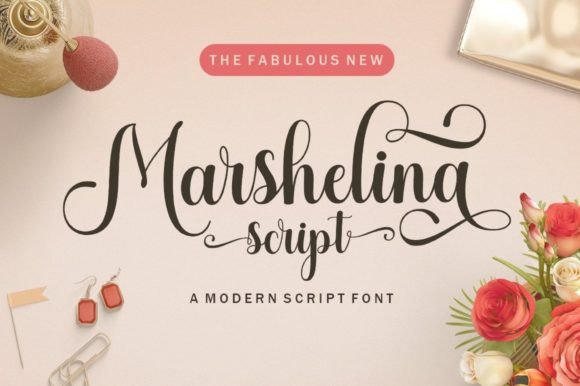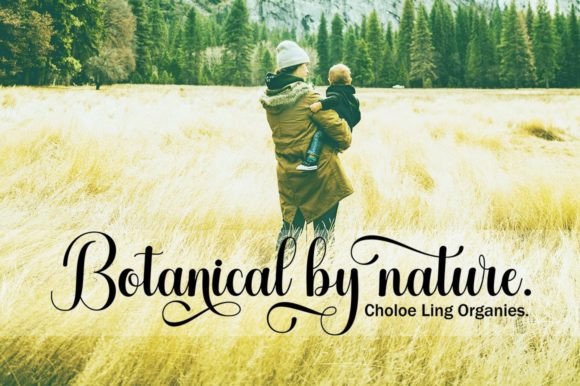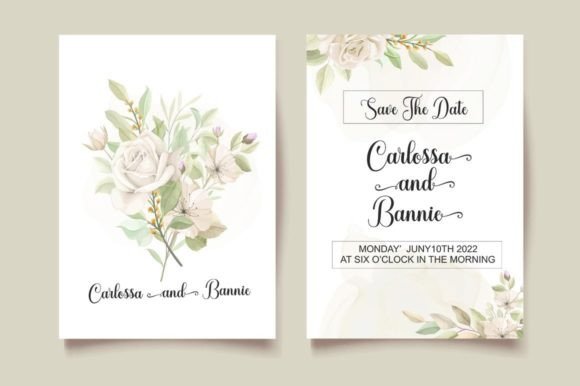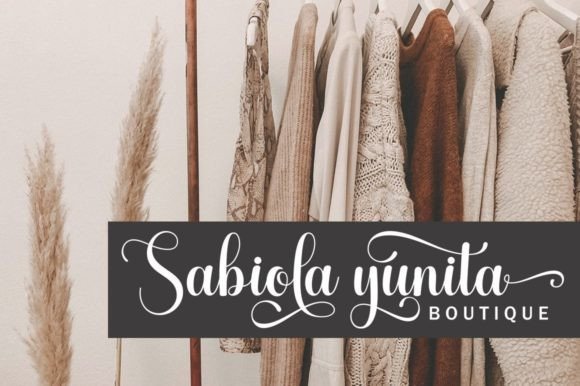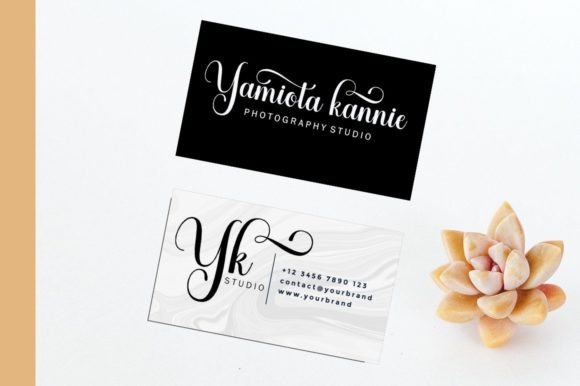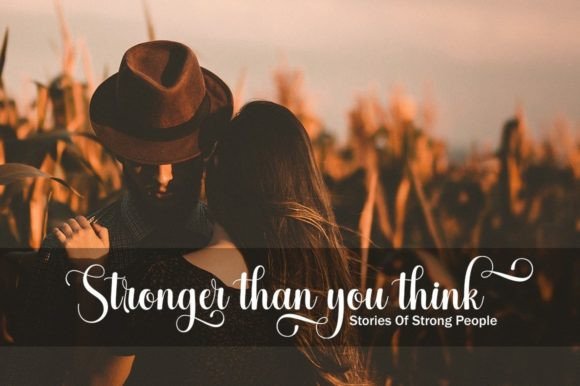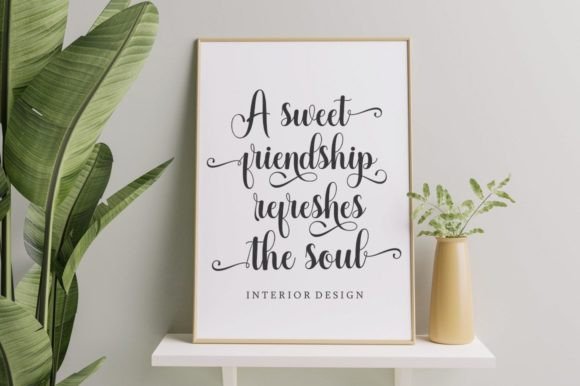
Marshelina Font
About Marshelina Font
Marshelina emerges as a romantic and sweet calligraphy typeface, where characters gracefully dance along the baseline, infusing a sense of luxury into any design project it graces. This font is not just a set of characters; it’s a visual symphony that adds a touch of sophistication and elegance to your creative expressions.
The romantic charm of Marshelina is evident in its flowing and curvaceous characters, carefully crafted to evoke a sense of warmth and delicacy. The typeface goes beyond mere letters; it encapsulates a mood, making it an ideal choice for projects where a touch of luxury and romance is desired.
The calligraphic strokes of Marshelina bring forth an air of handcrafted beauty, ensuring that each character contributes to the overall visual harmony. The dancing baseline adds a dynamic and playful element, making the font engaging and visually captivating.
What sets Marshelina apart is not just its aesthetic appeal but also its versatility. Whether used for invitations, branding, headlines, or social media graphics, this font adapts effortlessly to diverse design contexts. Its PUA encoding ensures easy access to a plethora of glyphs and ligatures, allowing for creative exploration and customization.
Incorporate Marshelina into your design repertoire, and witness how it elevates your projects to a new level of visual sophistication. Whether you’re working on wedding invitations, luxury branding, or any design that calls for a touch of romance, Marshelina is poised to be a valuable asset, infusing your creations with an irresistible charm.